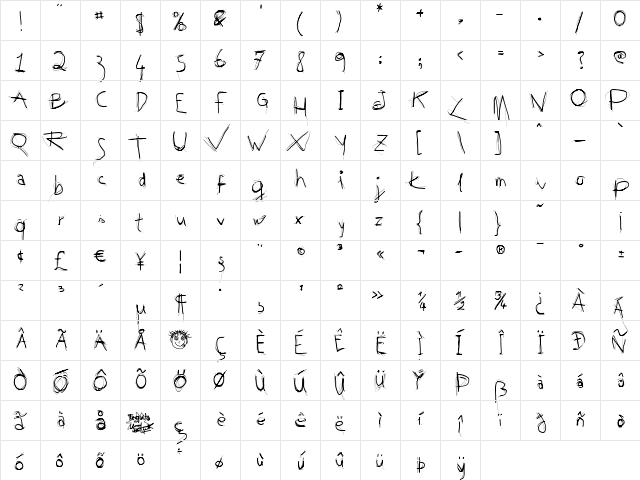
Tequila Regular
Design Context for Tequila Typeface
Tequila is a composed and adaptable typeface that performs quietly and consistently across a wide range of design contexts.